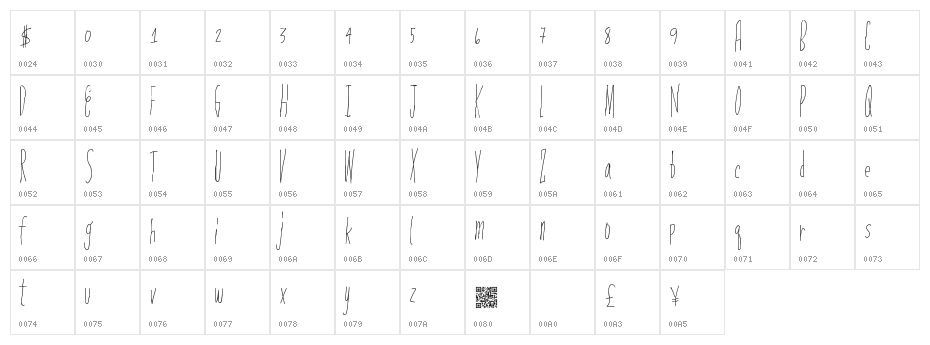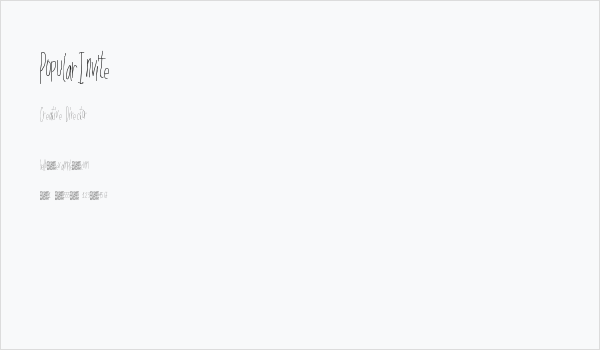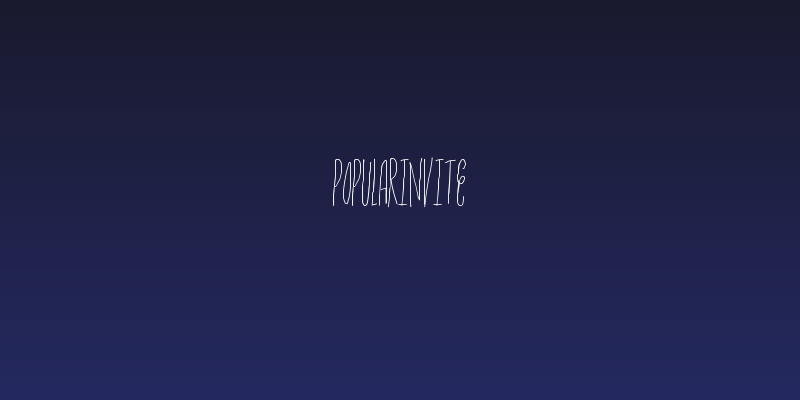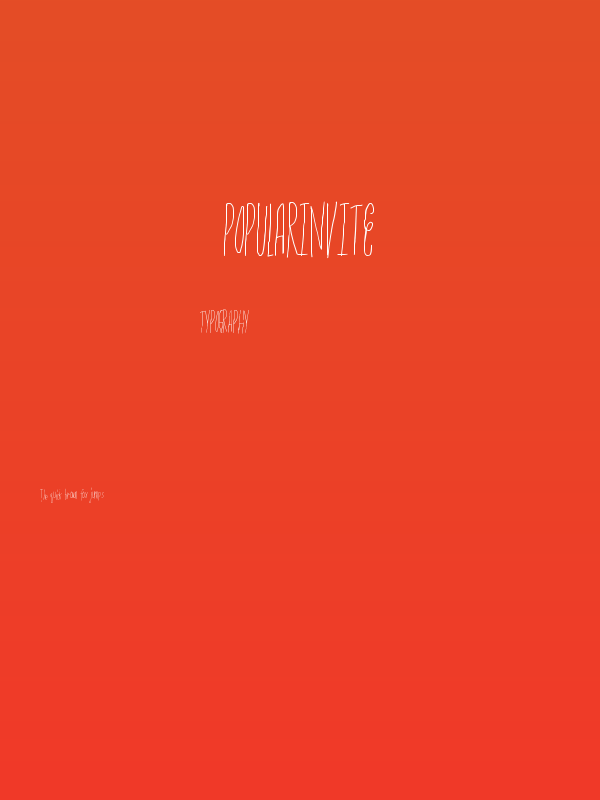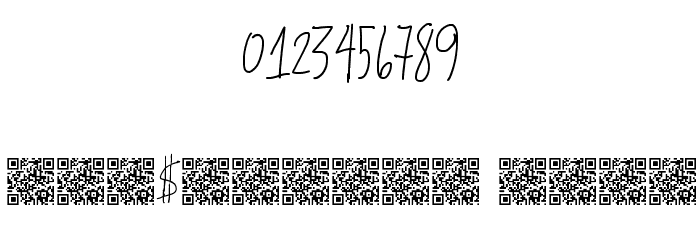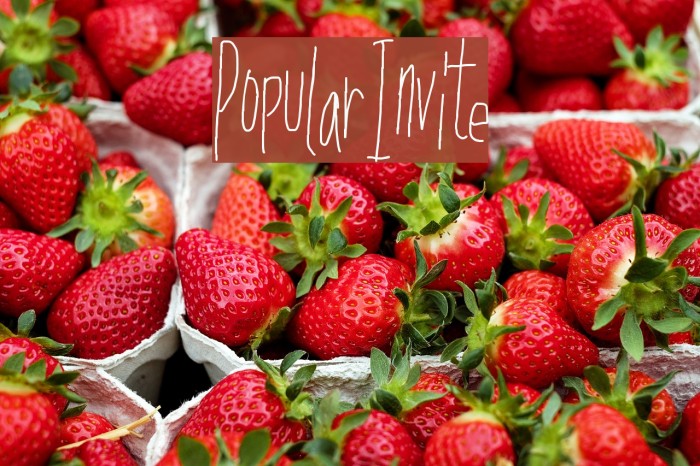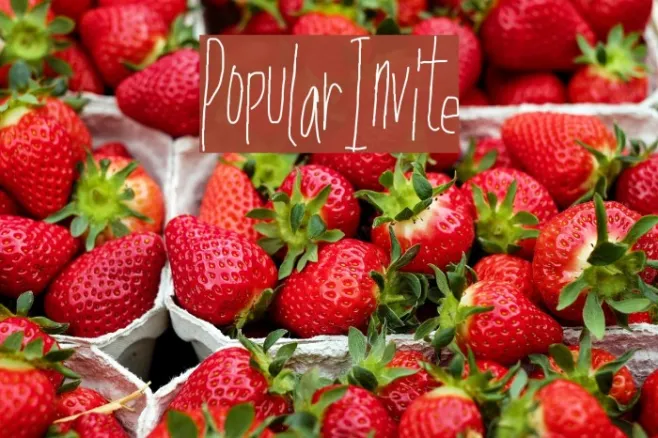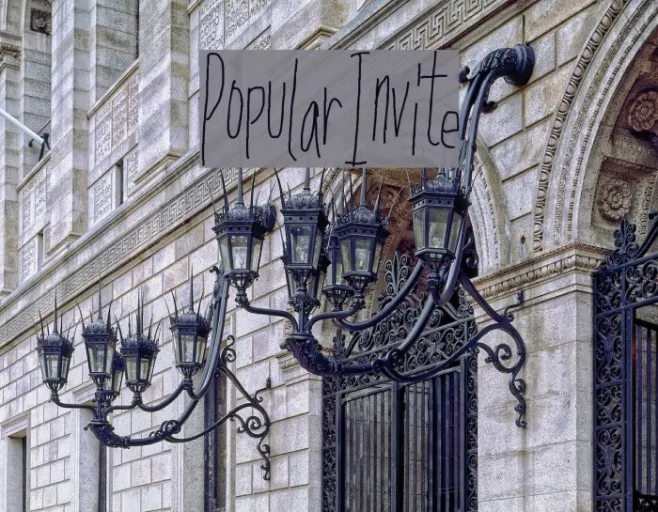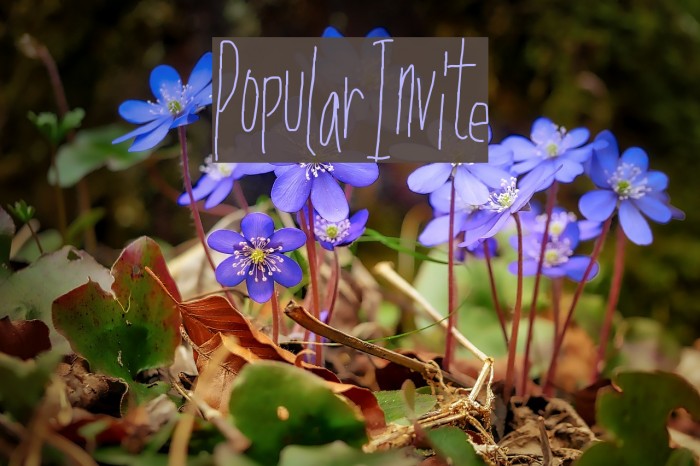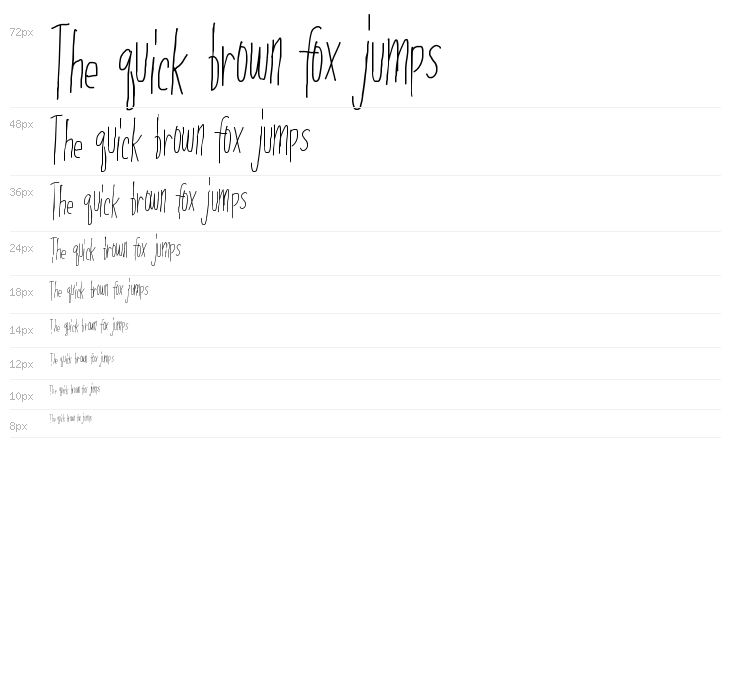
PopularInvite Font
PopularInvite Description
This font features a whimsical and playful handwritten style, characterized by tall, narrow letters with irregular strokes. The uppercase letters are elongated and slightly tilted, giving a dynamic and informal appearance. The lowercase letters maintain a similar quirky style, with some letters like 'g' and 'y' having distinctive loops and tails. The numbers follow the same playful aesthetic, ensuring consistency throughout the font. The special characters are creatively integrated, adding to the font's unique charm. Overall, this font exudes a casual and artistic vibe, making it suitable for creative projects.
| Overall Style | Casual, Artistic |
| Use Case | Invitations, Greeting cards, Artistic projects |
| Proposed Projects | Ideal for invitations, greeting cards, children's books, and artistic posters. |